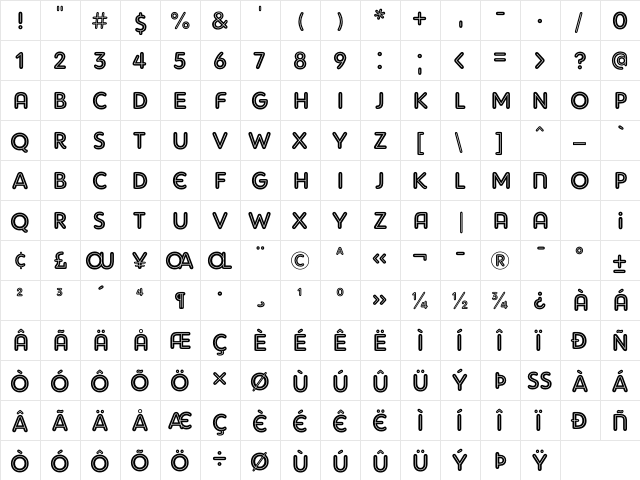
AdamGorry-Inline Regular
| Designer | James Arboghast |
Design Context for AdamGorry-Inline Typeface
AdamGorry-Inline brings ornamental detail and strong personality to headlines and identities, where visual impact matters more than quiet functionality.
Font Pairing: Pair with a clean neutral sans-serif for body copy to let AdamGorry-Inline's character lead without overwhelming the composition.
Pro Tip: Treat AdamGorry-Inline as the centrepiece of your typographic hierarchy. One strong heading set in a decorative face can carry an entire layout.